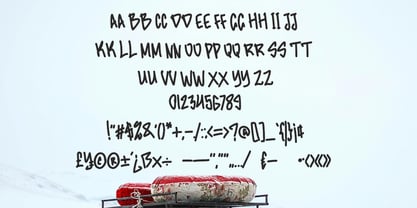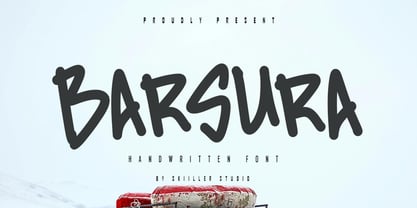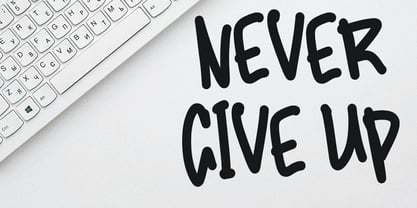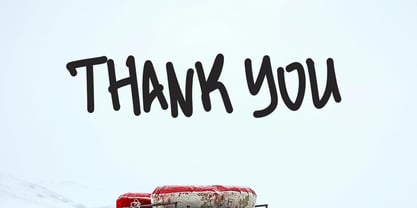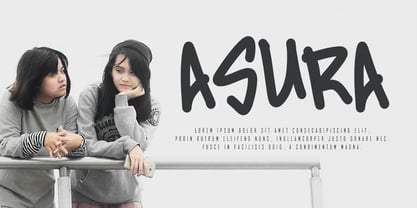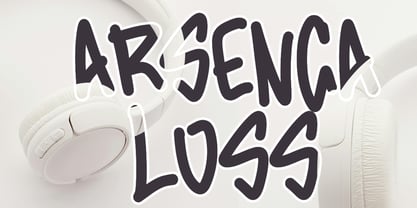
Barsura
by Skiiller Studio
The Barsura Font Family was designed by Irfan Mahmudin and published by Skiiller Studio. Barsura contains 1 styles.
Barsura is a bold handwritten font with a casual, playful, and modern feel. Designed to deliver strong visual impact, Barsura features thick strokes and rounded letterforms that feel friendly and expressive. This font is perfect for branding, posters, packaging, social media graphics, logos, merchandise, quotes, headlines, and creative projects that need a hand-drawn personality. Its natural handwritten style adds warmth and authenticity while remaining highly readable across digital and print designs.
Designers: Irfan Mahmudin
Publisher: Skiiller Studio
Foundry: Skiiller Studio
Design Owner: Skiiller Studio